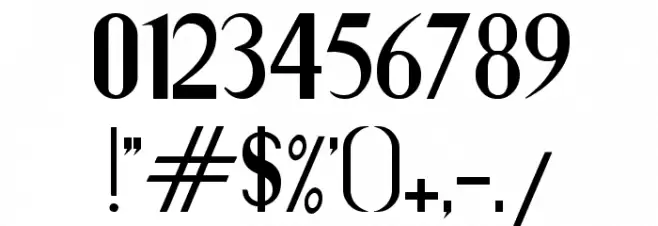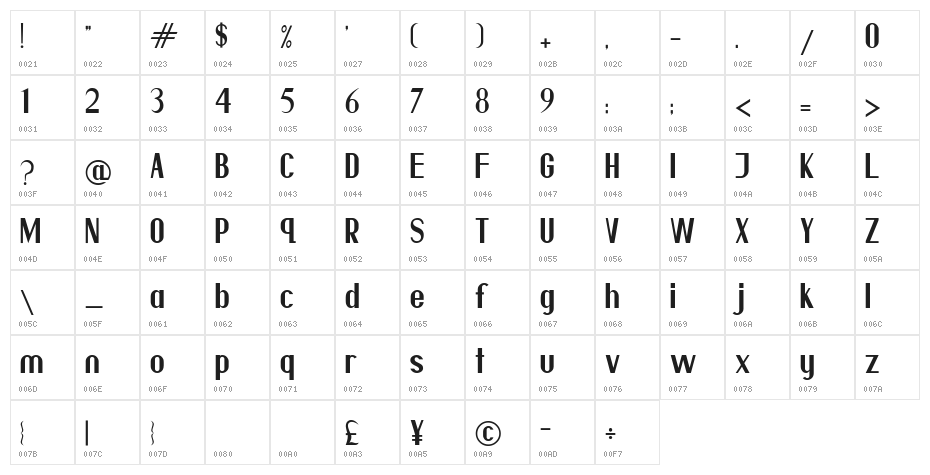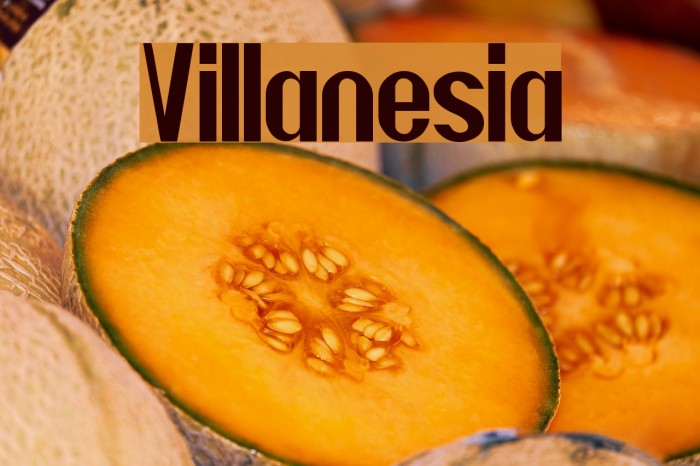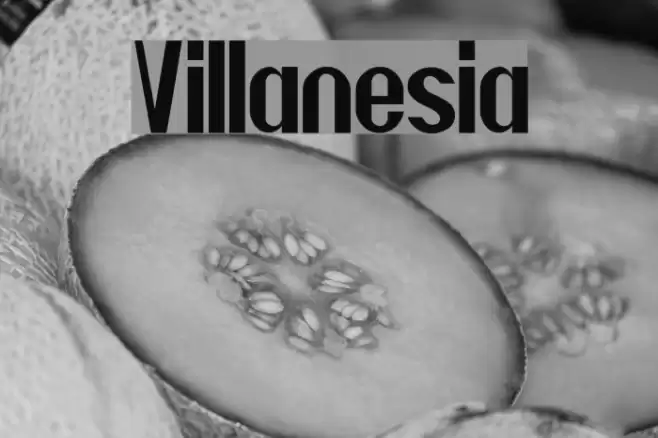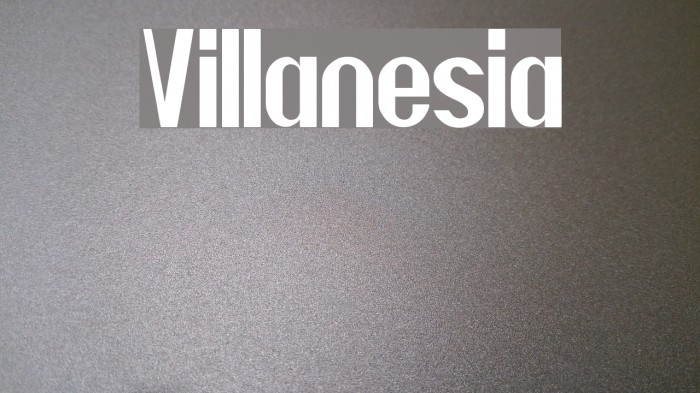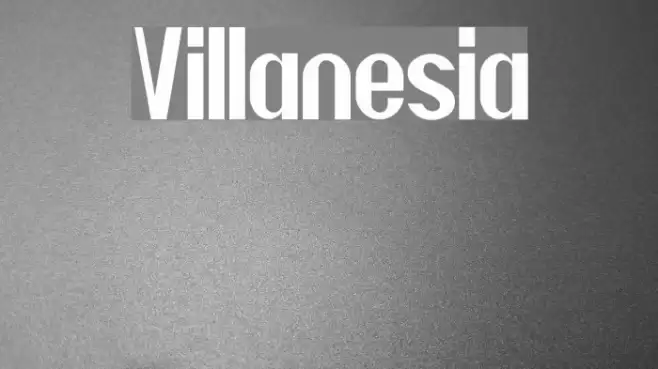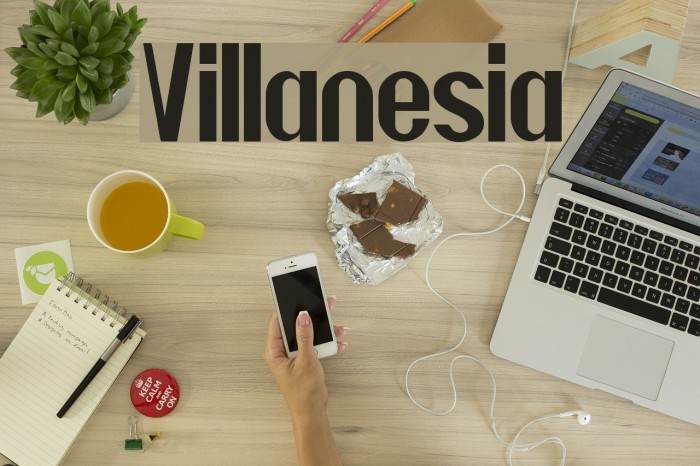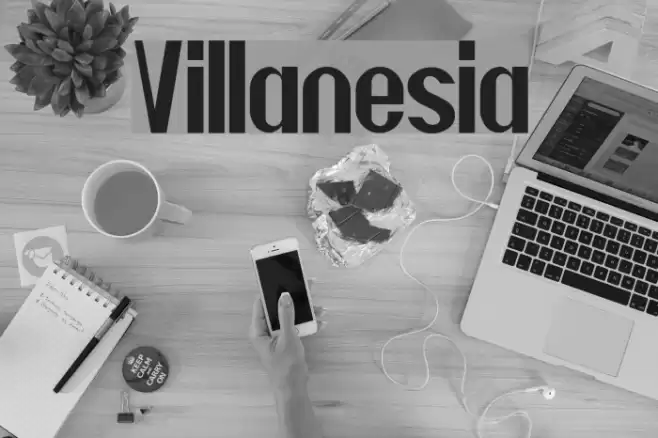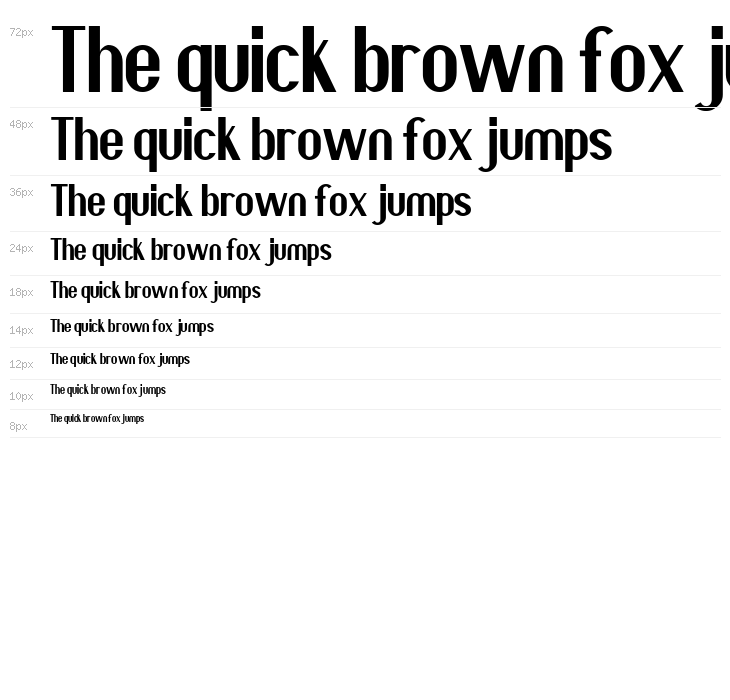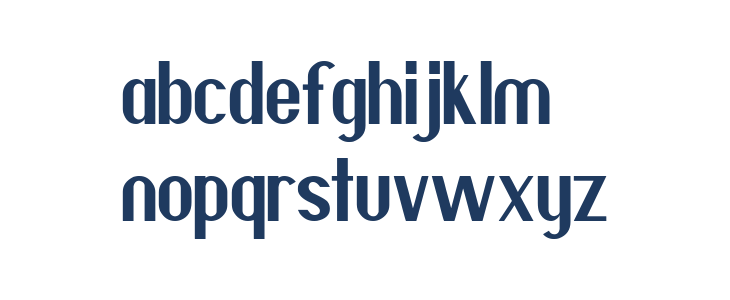
Villanesia Font
Villanesia Description
This font presents a bold and modern aesthetic with a distinctive geometric structure. The uppercase letters are tall and narrow, giving a sleek and sophisticated appearance. The lowercase letters maintain a consistent style, with rounded edges that add a touch of softness to the overall design. The numerals are clear and easily readable, with a uniform height that matches the uppercase letters. Special characters are designed with the same attention to detail, ensuring they blend seamlessly with the rest of the font. The font's high contrast between thick and thin strokes enhances its legibility and visual impact, making it suitable for various design applications.
| Proposed Projects | Ideal for branding, advertising, and editorial design where a modern and impactful look is desired. |